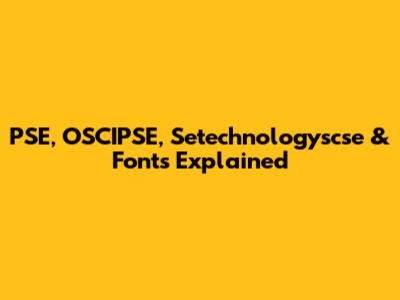
Let's dive into the world of PSE, OSCIPSE, Setechnologyscse, and fonts. These terms might sound a bit technical at first, but don't worry, we'll break them down in a way that's easy to understand. Whether you're a designer, developer, or just someone curious about these topics, this guide is for you. We will explore the meanings, applications, and significance of each term, ensuring you walk away with a solid understanding. Consider this your friendly introduction to these concepts!
Understanding PSE
When we talk about PSE, we're often referring to Photopea Scripting Engine. Photopea is a powerful online image editor that rivals software like Adobe Photoshop. The Photopea Scripting Engine allows users to automate tasks and extend the editor's functionality through scripts. These scripts can be written in JavaScript, making it accessible to many developers. Now, why is this important? Imagine you have a repetitive task, like resizing hundreds of images or applying the same filter to multiple layers. Instead of doing this manually, you can write a script to handle it automatically. This saves you time and reduces the chance of errors. The scripts can range from simple operations to complex workflows, making Photopea incredibly versatile. Furthermore, the PSE opens up possibilities for creating custom tools and plugins that aren't available in the standard Photopea interface. If you're a designer or a developer looking to streamline your workflow, learning how to use the Photopea Scripting Engine is a game-changer. Plus, the fact that Photopea is accessible from any web browser means you can run these scripts on any computer without needing to install heavy software. It's all about efficiency and accessibility! For example, a photographer might use a PSE script to automatically watermark all their images before uploading them online, ensuring their work is protected. A web designer could use it to generate multiple versions of a banner ad in different sizes, ready for deployment across various platforms. The possibilities are truly endless, and the more you explore the PSE, the more you'll discover its potential to revolutionize your creative process. So, get scripting and see what amazing things you can create!
Diving into OSCIPSE
Now, let's tackle OSCIPSE. This one might seem a bit more obscure, but it’s still worth understanding. While it's not as widely known as PSE, OSCIPSE could relate to a specific project, tool, or technology within a particular field, possibly within the realm of scientific computing or engineering. It's essential to investigate the context in which you encountered this term. For instance, OSCIPSE might be an acronym for a software library used in a niche area of research or a proprietary tool developed by a specific company. Without more context, it’s challenging to provide a definitive explanation. However, let's explore some potential avenues. In the context of scientific computing, OSCIPSE could refer to a set of algorithms or a simulation environment used for solving complex problems. These problems might involve modeling physical systems, analyzing large datasets, or optimizing engineering designs. Imagine you're an engineer designing a new bridge. You might use an OSCIPSE-related tool to simulate how the bridge will behave under different loads and environmental conditions, ensuring its safety and stability. Alternatively, in the field of data analysis, OSCIPSE could be a library that provides specialized functions for processing and visualizing data. This could be useful for researchers who need to extract meaningful insights from large and complex datasets. For example, a biologist might use an OSCIPSE-related library to analyze genomic data and identify patterns that could lead to new treatments for diseases. The key takeaway here is that the meaning of OSCIPSE is highly dependent on its context. To truly understand it, you need to know where you encountered this term and what field it relates to. Don't hesitate to do some research, ask experts in the field, or consult relevant documentation to get a clearer picture. This is the best way to unravel the mystery of OSCIPSE and understand its significance.
Exploring Setechnologyscse
Moving on to Setechnologyscse, this term appears to be a specific name, possibly related to a company, product, or technology. Without further information, it's difficult to provide a precise definition. However, we can explore some general possibilities. If Setechnologyscse is the name of a company, it likely specializes in a particular area of technology, such as software development, hardware manufacturing, or IT services. To understand what the company does, you would need to visit its website, read its marketing materials, or look for news articles about its activities. For example, Setechnologyscse might be a company that develops cutting-edge cybersecurity solutions for businesses, helping them protect their data and systems from cyber threats. Or, it could be a company that manufactures specialized sensors for industrial applications, enabling businesses to monitor and control their processes more effectively. If Setechnologyscse is the name of a product, it could be a software application, a hardware device, or a service that solves a specific problem for its users. To understand the product's features and benefits, you would need to read its documentation, watch a demo video, or try it out for yourself. For instance, Setechnologyscse might be a cloud-based platform that helps businesses manage their customer relationships, providing them with tools to track leads, manage contacts, and automate marketing campaigns. Or, it could be a mobile app that helps users learn a new language, providing them with interactive lessons, vocabulary quizzes, and pronunciation practice. The key to understanding Setechnologyscse is to gather more information about it. Search online for the term, look for official websites or documentation, and see if you can find any reviews or testimonials from users. This will help you get a better sense of what Setechnologyscse is and what it does. Additionally, consider the context in which you encountered this term. Was it mentioned in a news article, a blog post, or a conversation with someone in the technology industry? This context can provide valuable clues about its meaning and significance.
All About Fonts
Finally, let's discuss fonts. Fonts are an essential element of design and communication. They are the visual representation of text, and they play a crucial role in conveying meaning and creating a specific mood or tone. Choosing the right font can make a big difference in how your message is received. There are countless fonts available, each with its own unique characteristics. Some fonts are classic and timeless, while others are modern and trendy. Some are easy to read, while others are more decorative. The key is to choose a font that is appropriate for your project and audience. When selecting a font, consider factors such as readability, legibility, and personality. Readability refers to how easy it is to read a block of text. Fonts with clear and simple letterforms are generally more readable than fonts with complex or decorative letterforms. Legibility refers to how easy it is to distinguish individual letters from each other. Fonts with distinct letterforms are more legible than fonts with similar letterforms. Personality refers to the overall mood or tone that a font conveys. Some fonts are formal and professional, while others are casual and playful. The personality of the font should match the overall tone of your project. In addition to these factors, it's also important to consider the technical aspects of fonts. Fonts come in different formats, such as TrueType, OpenType, and Web Open Font Format (WOFF). Each format has its own advantages and disadvantages. TrueType fonts are the most common type of font and are supported by most operating systems and applications. OpenType fonts are a more advanced type of font that offers more features and flexibility. WOFF fonts are specifically designed for use on the web and are optimized for fast loading times. Whether you're designing a website, creating a presentation, or writing a document, choosing the right font is essential. Take the time to explore different fonts and find the ones that best suit your needs. With a little bit of knowledge and experimentation, you can use fonts to enhance your message and create visually appealing designs. Remember, the right font can make all the difference in how your message is perceived.